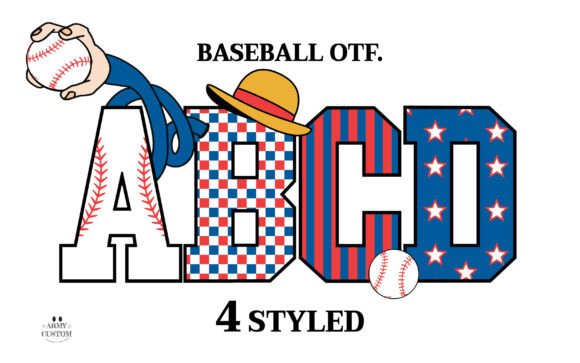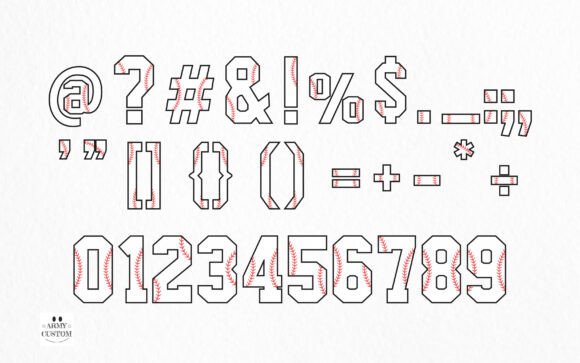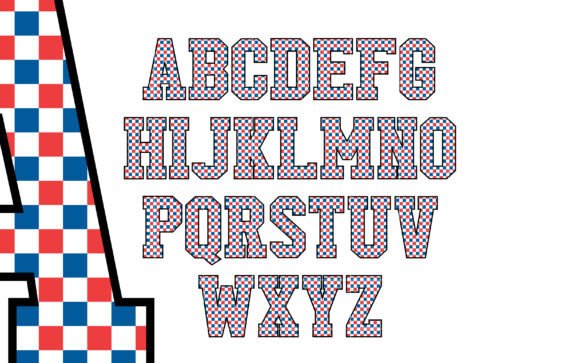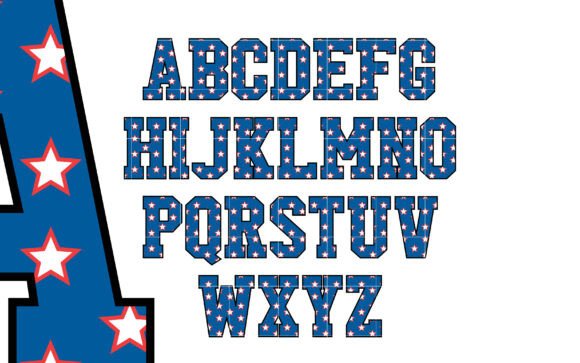
Baseball Bundle Font
Baseball Army is a cute and colorful font. It embodies playfulness and authenticity and is the perfect choice for any children’s activity or school project. Add this chunky lettered font to your designs and notice how it makes them come alive!